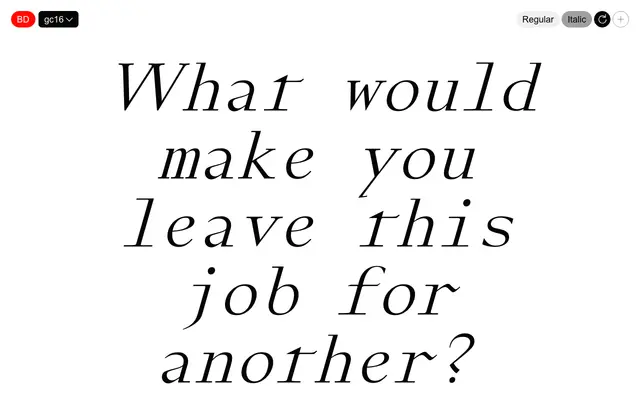
A two-style experimental typeface from Bold Decisions, offered in Regular and Italic.
Released by Bold Decisions under a coded alphanumeric name, Gc-16 is a minimal offering comprising a Regular and Italic. The naming convention is consistent with Bold Decisions' broader typographic practice of treating typefaces as discrete design objects rather than extensive families. Beyond its two styles, little additional information is available from the page.
The minimal page content and name suggest an experimental or display-oriented typeface; the presence of only Regular and Italic styles, alongside the coded naming convention, points to a niche display or experimental category.